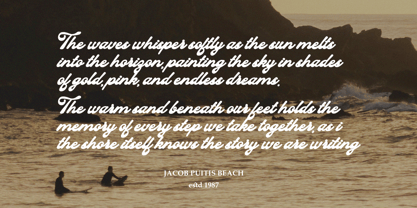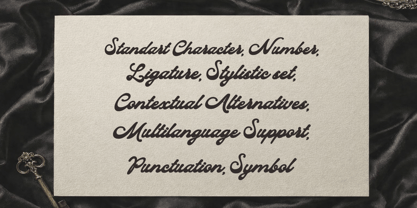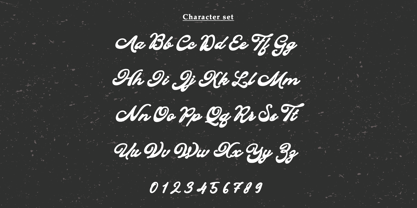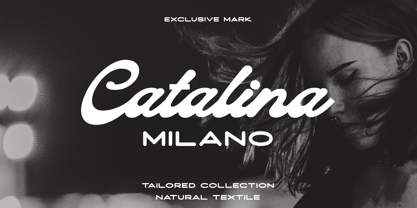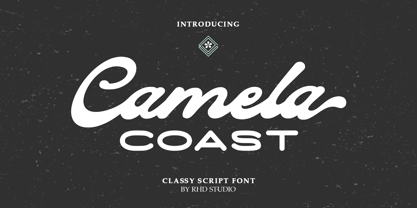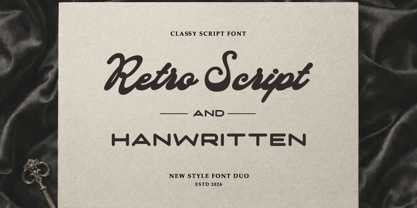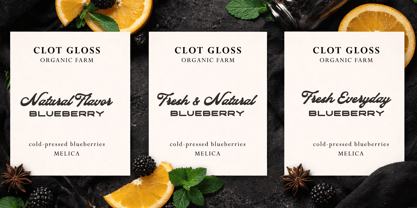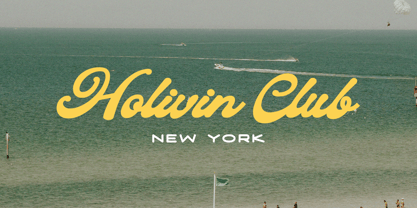
Camela Coast
por Rhd Studio
La familia tipográfica Camela Coast fue diseñada por Rahmad Rizky y publicada por Rhd Studio. Camela Coast contiene 2 estilos y opciones de paquete familiar.
Camela Coast is a classy and elegant script font, designed to bring a touch of luxury and charm to your creative projects. With its smooth curves, stylish strokes, and perfectly balanced flow, this font creates a natural handwritten feel while maintaining a high-end look. Carefully designed for versatility, Camela Coast is perfect for logos, branding, wedding invitations, social media, packaging, and more. Its modern yet timeless style makes it ideal for designers who want to create eye-catching and sophisticated designs with ease. Let Camela Coast elevate your work with its graceful character and refined beauty—the perfect choice for adding a premium and unforgettable touch to any project.
Camela Coast